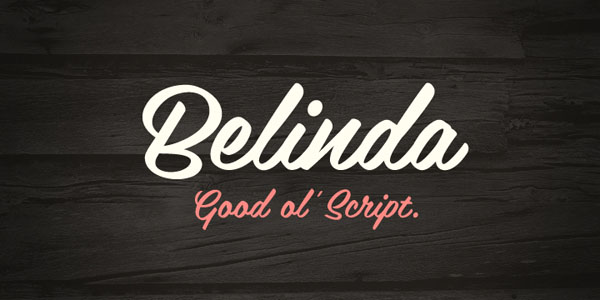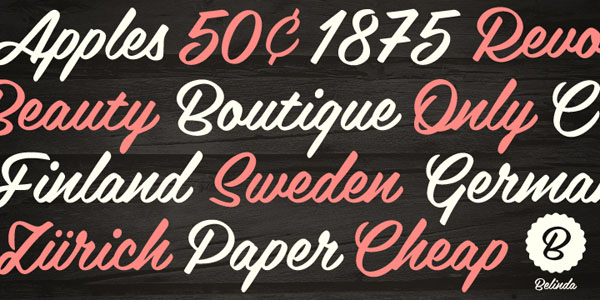
Belinda Handwritten Typeface.
Belinda is the name of this beautiful modern script font by Mika Melvas. Its round and soft shape looks great in designs for celebrations or natural labels with a handwritten style.